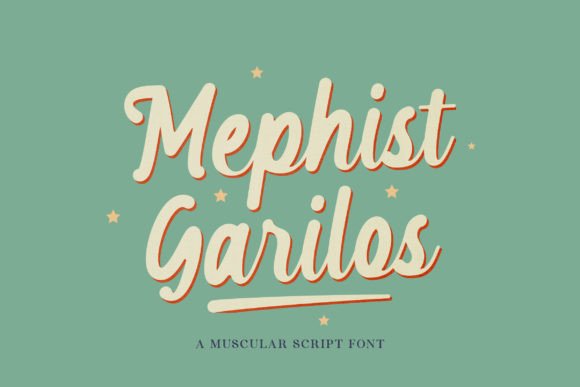
Introducing Mephist Garilos - a muscular script font that packs a powerful punch to any design project! Whether you're looking to create a vintage-inspired logo or add a touch of retro flair to your branding, this font is the perfect choice for you.
Created by lemonthe, Mephist Garilos is a font that exudes strength and style. Its script design features bold, sweeping curves and confident strokes that capture the essence of a bygone era. With its unique aesthetic, Mephist Garilos is sure to make your designs stand out from the crowd.
But this font is more than just a pretty face. It is also incredibly versatile and can be used in a wide range of projects, from product designs to labels and much more. Its PUA encoding ensures that you can access all of the glyphs and swashes with ease, making customization a breeze.
So why should you choose Mephist Garilos for your next project? Simply put, it will add that special retro touch that you've been looking for. It will elevate your designs to new heights and make them truly unforgettable.